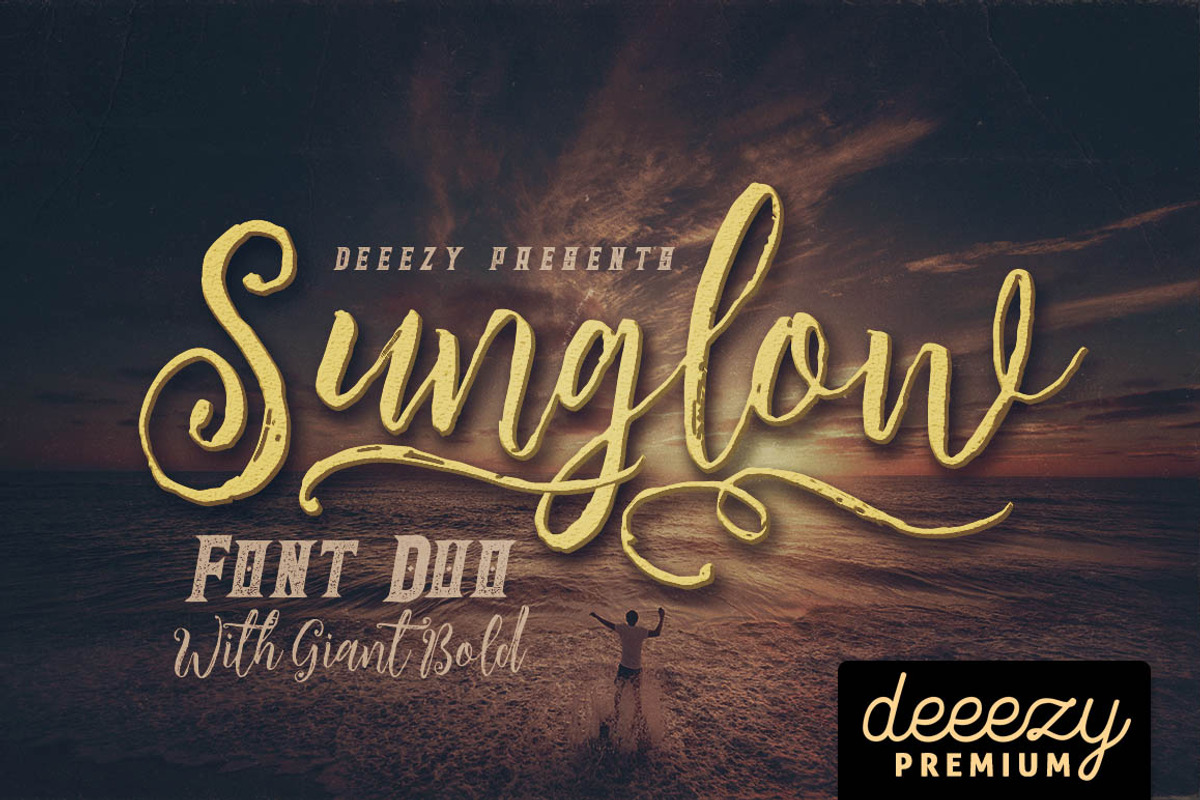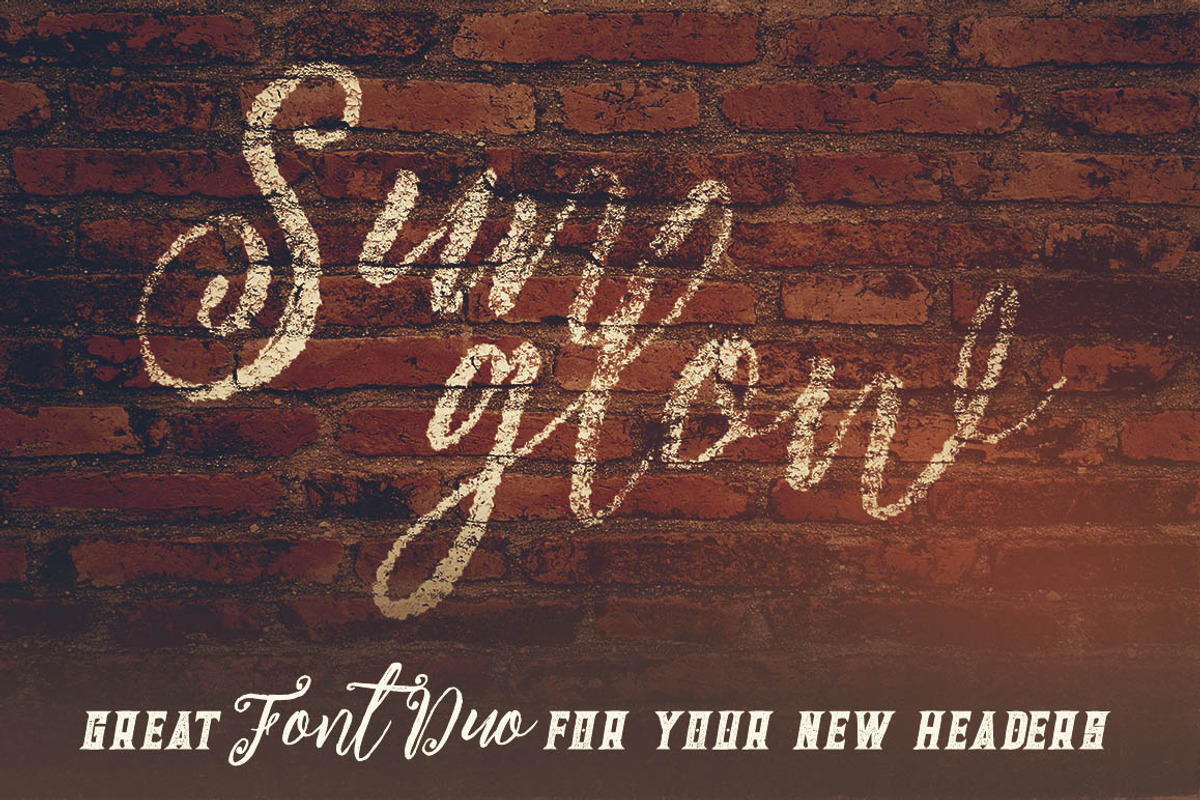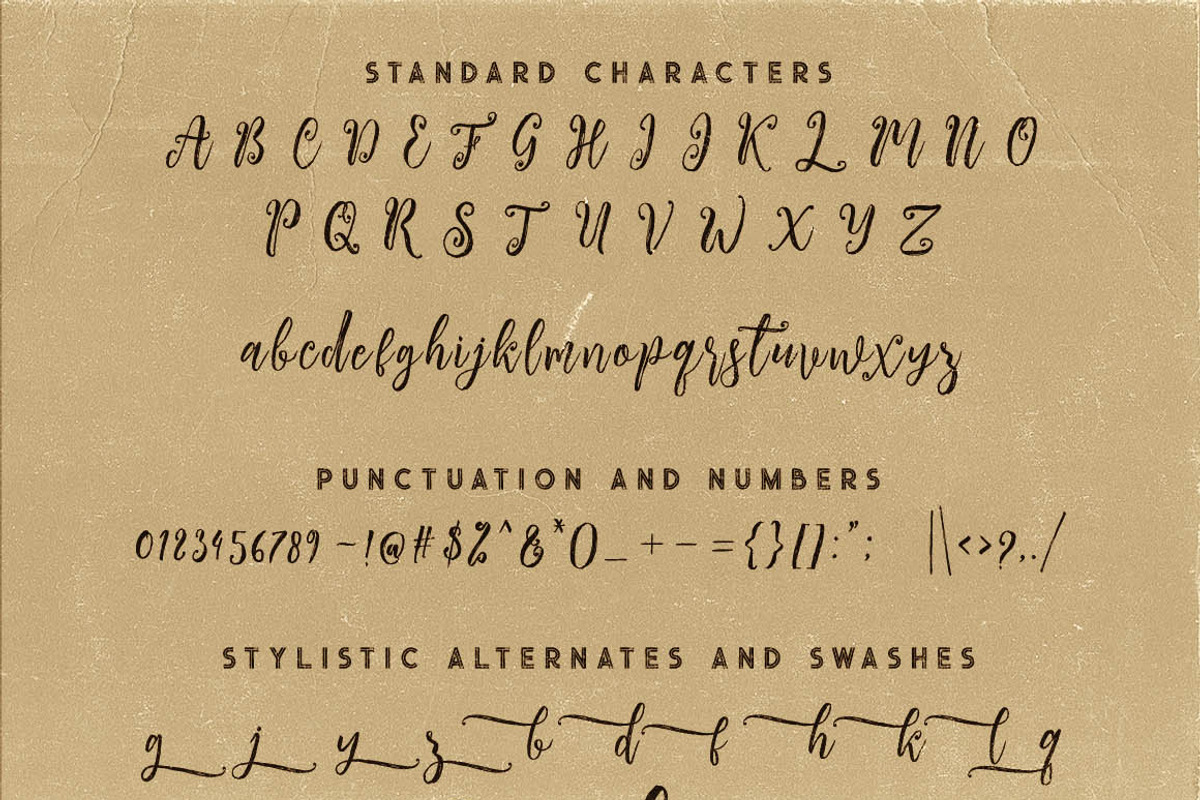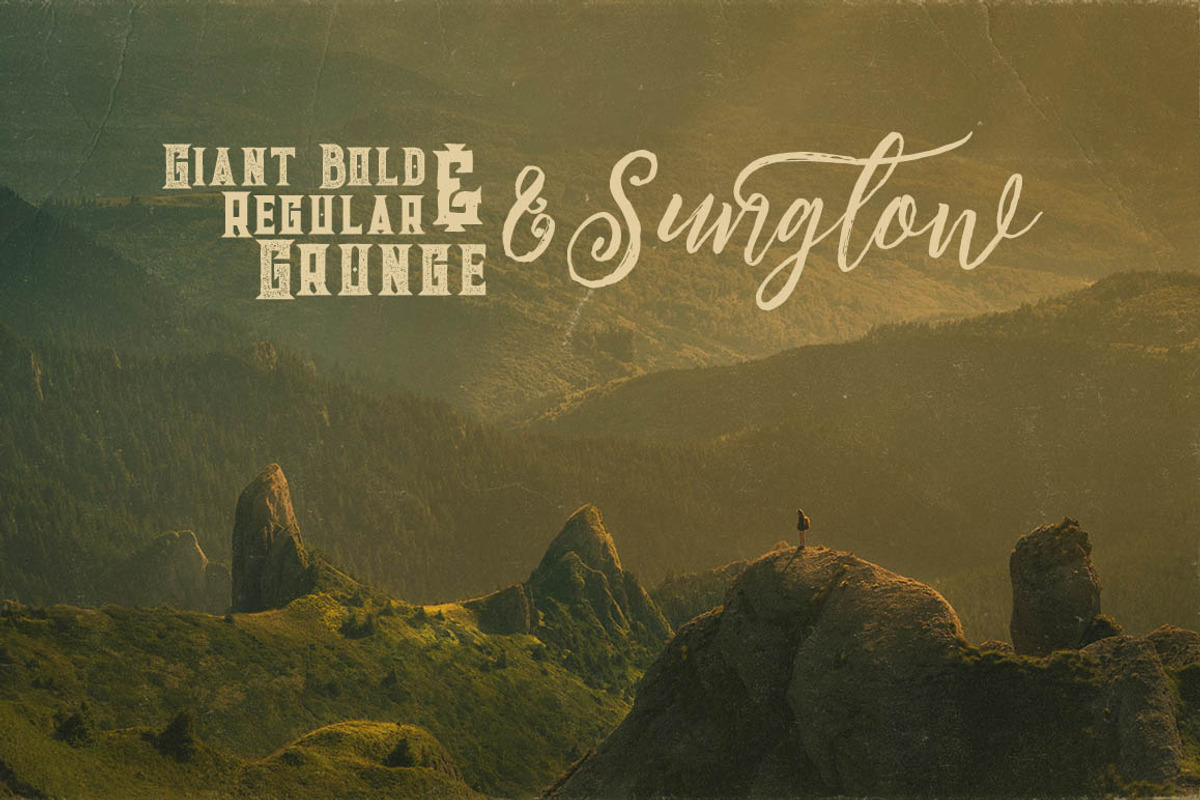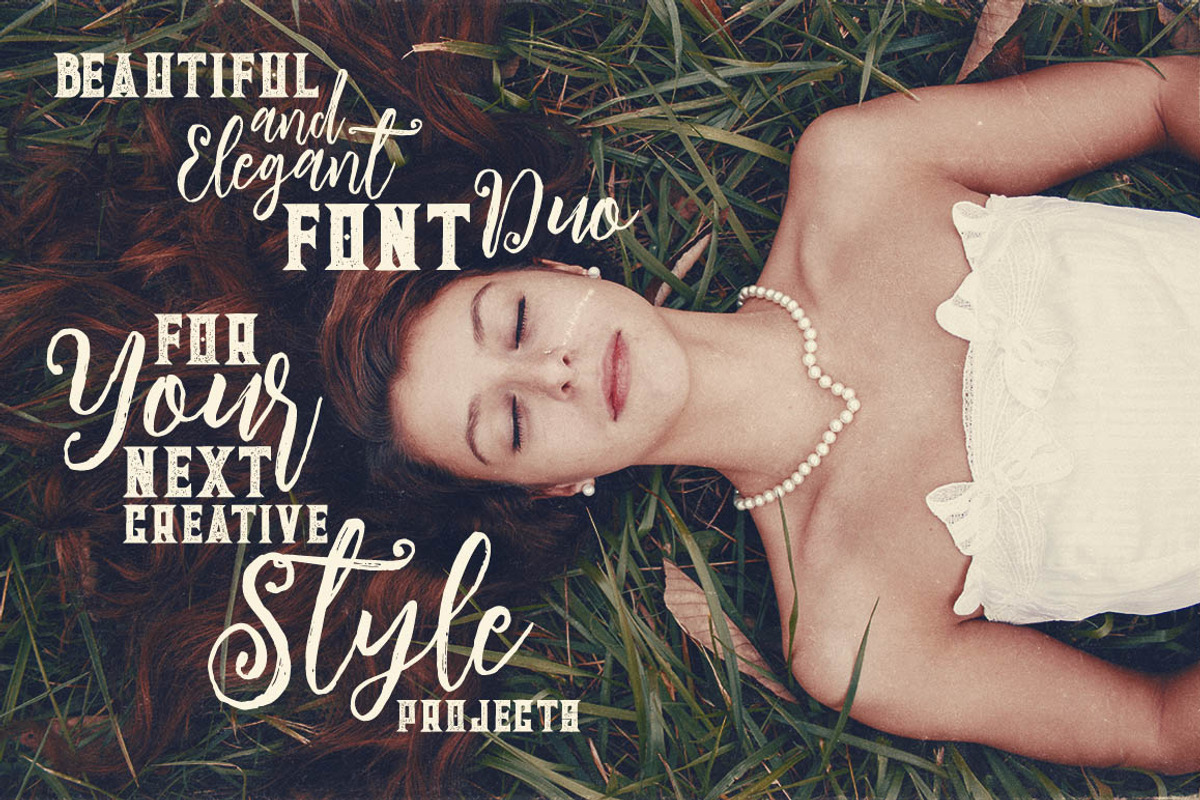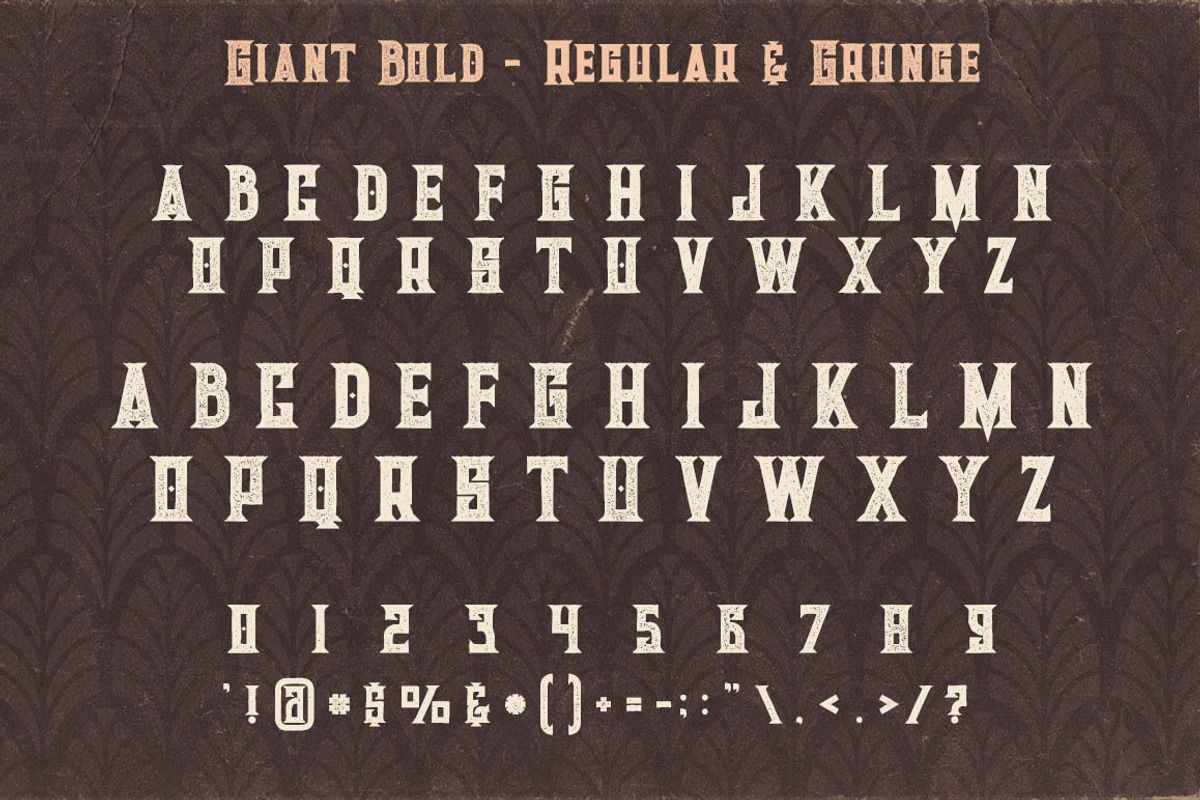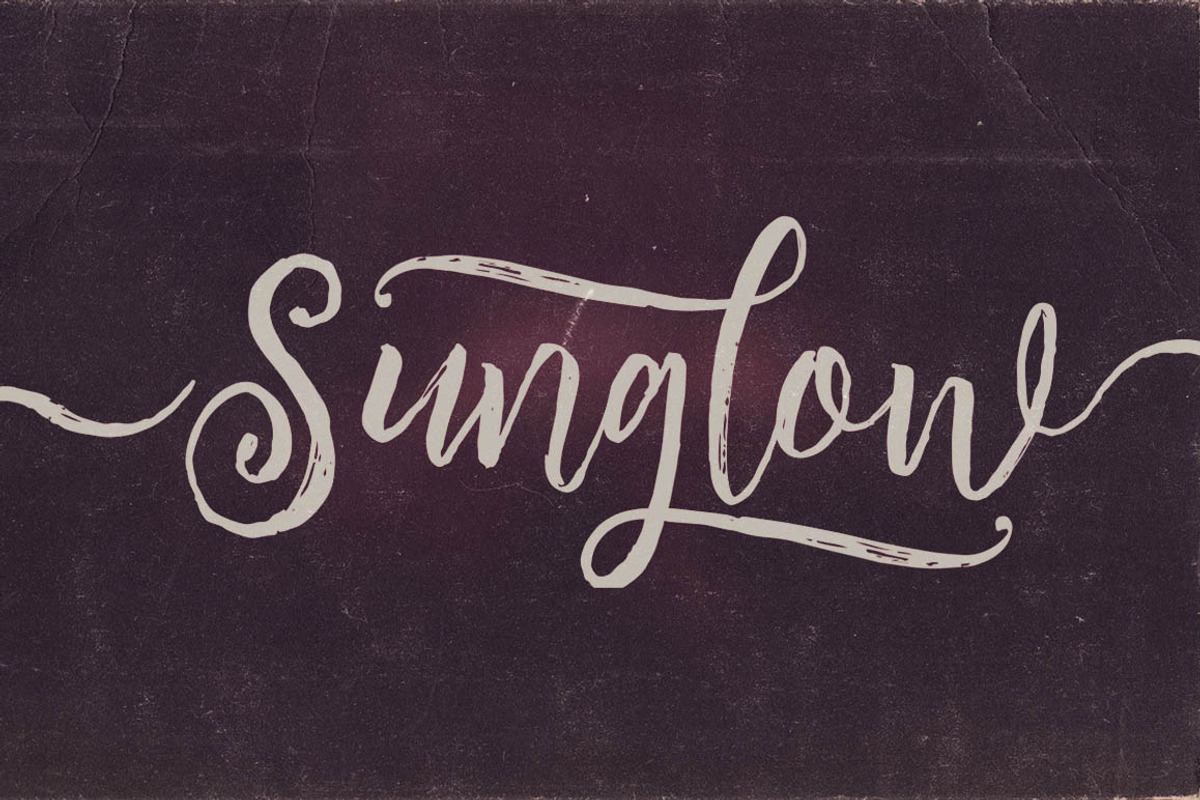
Sunglow Font Duo
Cool retro or vintage style font duo for your new projects. First font is grunge & unique style brush script font with multi language support and lot of stylistic alternates + swash font. Second font is bold display font with regular & grunge version (without multi language support).